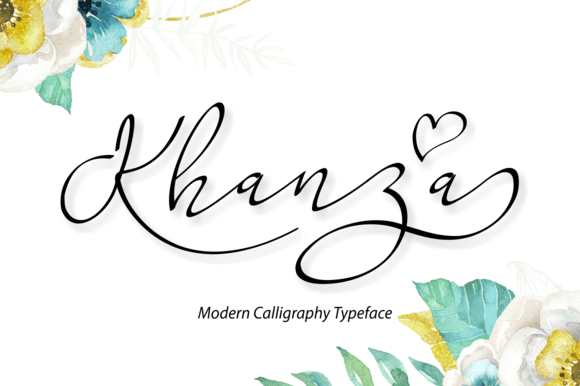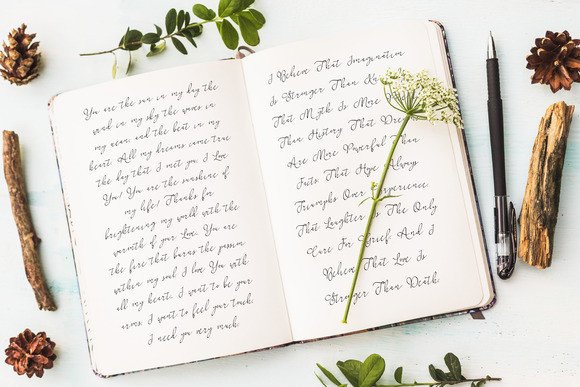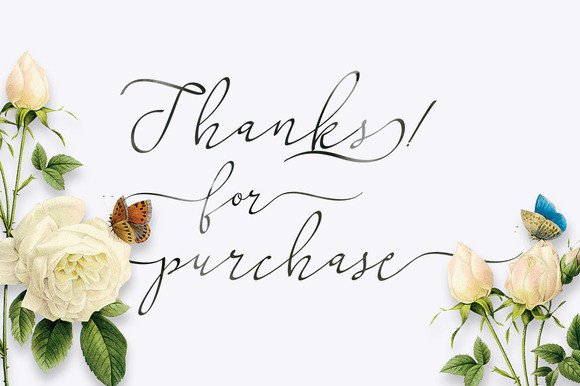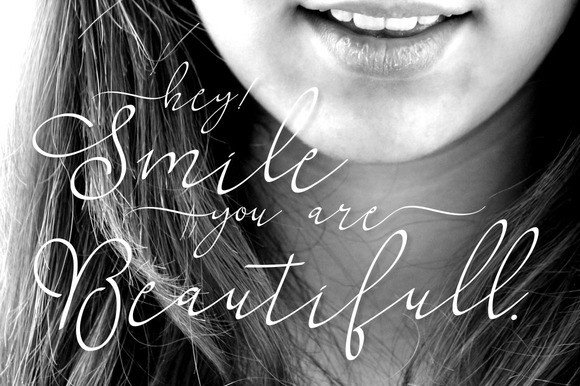
Khanza Font
About Khanza Font
Khanza Script is a hand drawn typeface. It can be used for various purposes such as headings, logos, invitations, t-shirt designs, greeting cards, posters, labels, book covers, brochures and much more!